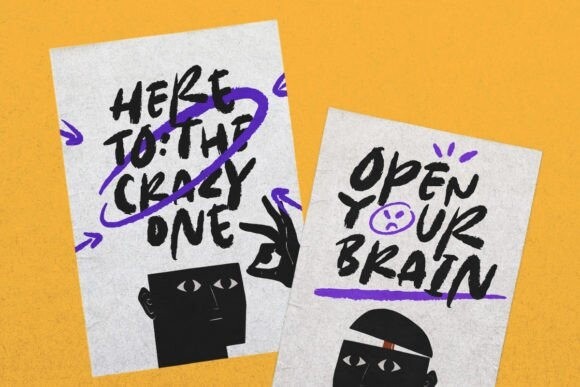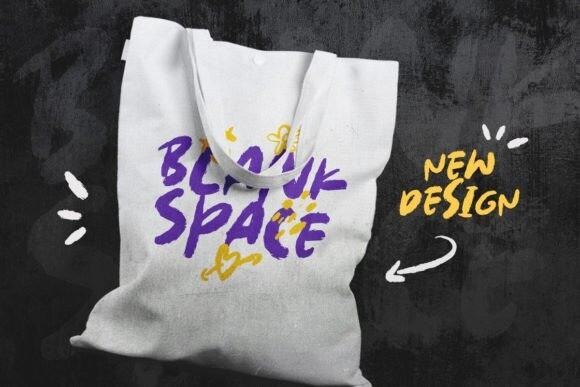
Pretty Ordinary Font
Pretty Ordinary Font is a brush display font with a bold and quirky look. Contemporary and fresh, it is perfect for any design you wish to create. Add it to your creative projects and make them outstanding!